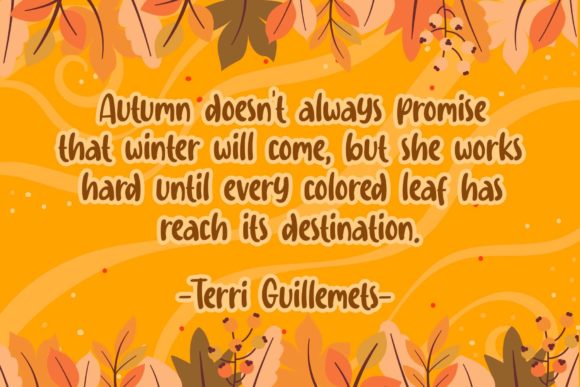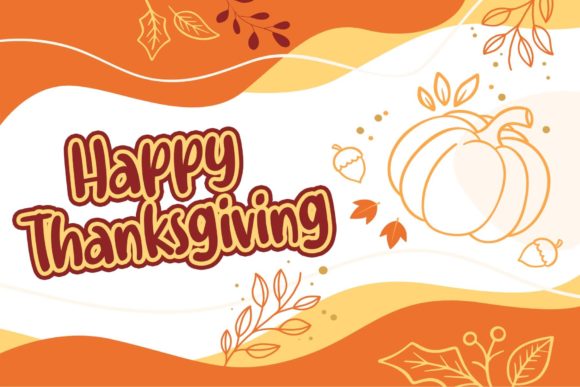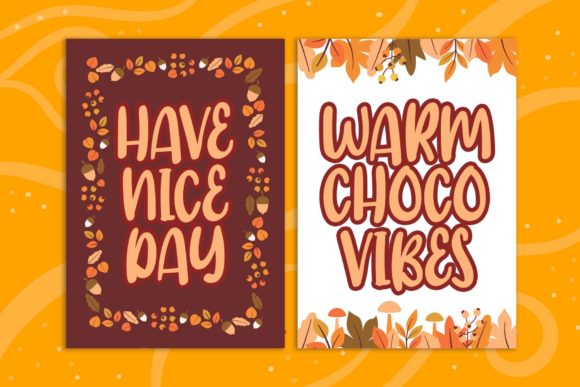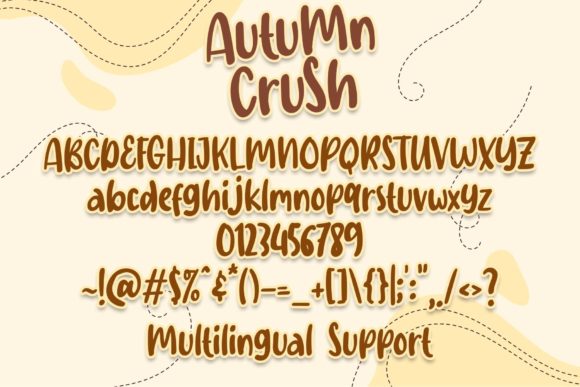
Introducing Autumn Crush: The Chic and Trendy Handwritten Font
As the seasons change and autumn arrives, designers and crafters are on the lookout for fresh and exciting fonts to elevate their creations. If you’re searching for a font that embodies the warmth and coziness of the season, look no further than Autumn Crush. This chic and trendy handwritten font is the perfect addition to your font library, capable of enhancing any project with its unique charm.
The Characteristics of Autumn Crush
Autumn Crush is a beautifully crafted handwritten font that exudes a sense of sophistication and playfulness. Its elegant strokes and carefully considered letterforms make it an excellent choice for a wide range of design applications, from branding and packaging to invitations and social media graphics.
One of the standout features of Autumn Crush is its versatility. Whether you’re working on a project that requires a touch of whimsy or a more formal, refined look, this font adapts effortlessly to suit your needs. Its subtle imperfections and organic feel give it a human touch, making it perfect for designs that aim to connect with audiences on a personal level.
Why Choose Autumn Crush?
So, what sets Autumn Crush apart from other fonts on the market? Here are just a few reasons why designers and crafters are falling in love with this gorgeous handwritten font:
• Unique and Eye-Catching: Autumn Crush has a distinctive look that will instantly elevate your designs and set them apart from the crowd.
• Versatile: This font can be used for a wide range of projects, from elegant wedding invitations to playful social media graphics.
• Easy to Read: Despite its artistic feel, Autumn Crush remains highly legible, making it perfect for designs that require a clear and concise message.
• Highly Customizable: With Autumn Crush, you can experiment with different colors, textures, and effects to create a look that’s uniquely yours.
Using Autumn Crush in Your Designs
Autumn Crush is incredibly easy to use, even for designers who are new to working with handwritten fonts. Here are a few tips for incorporating this beautiful font into your projects:
• Pair it with Bold Fonts: Autumn Crush looks stunning when paired with bold, sans-serif fonts. Try using it in combination with a geometric font for a striking contrast.
• Experiment with Colors: The warm, earthy tones of autumn are the perfect match for Autumn Crush. Try using the font in rich shades of orange, red, and yellow to evoke the feeling of fall.
• Add Texture and Patterns: To give your designs an extra boost of personality, try adding texture and patterns to your Autumn Crush font. A subtle leaf pattern or a texture that resembles watercolor paper can add a lovely organic feel.
Autumn Crush is a truly special font that has the potential to transform your designs and take them to the next level. Its unique blend of elegance and playfulness makes it perfect for a wide range of projects, from branding and advertising to crafting and DIY. Whether you’re a seasoned designer or a crafty hobbyist, Autumn Crush is sure to become a favorite in your font library.